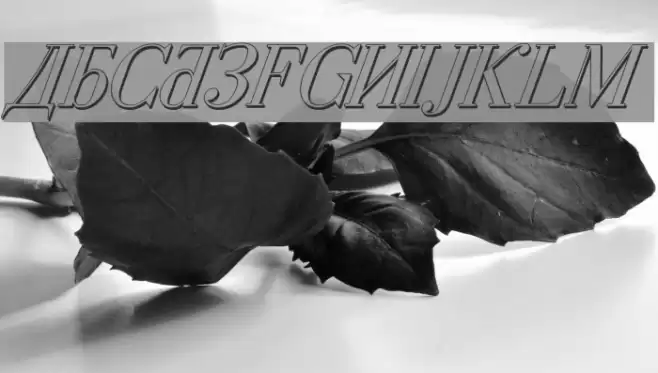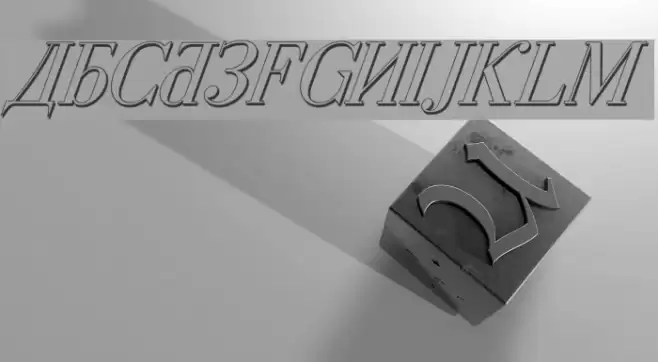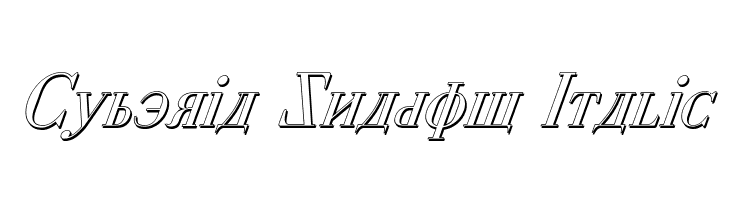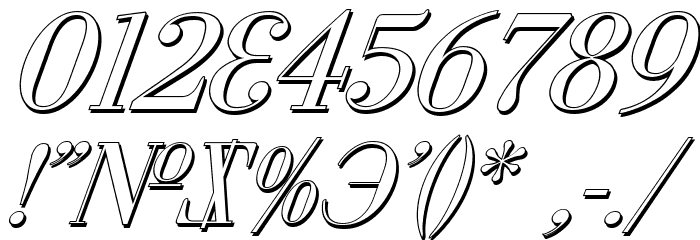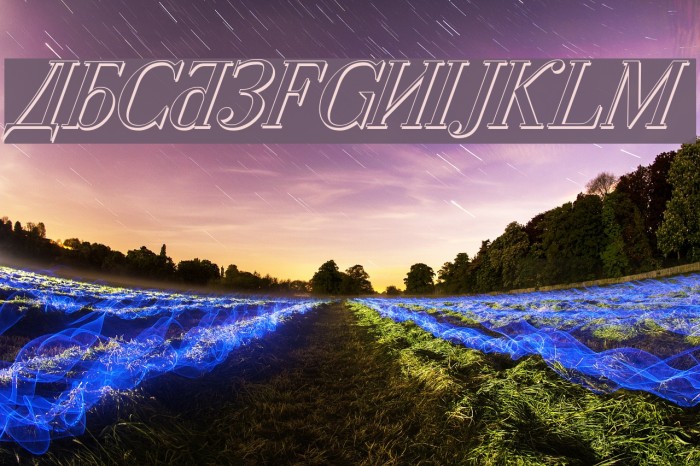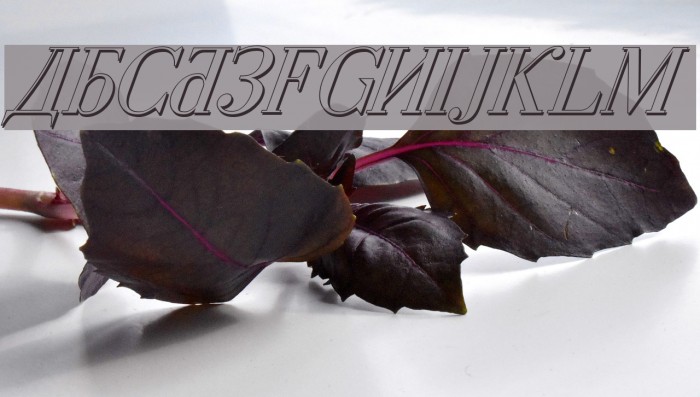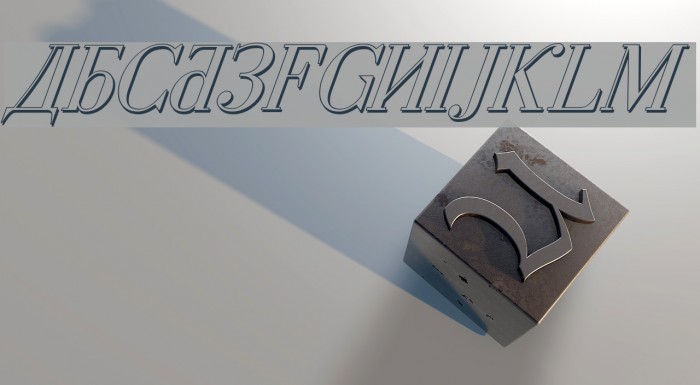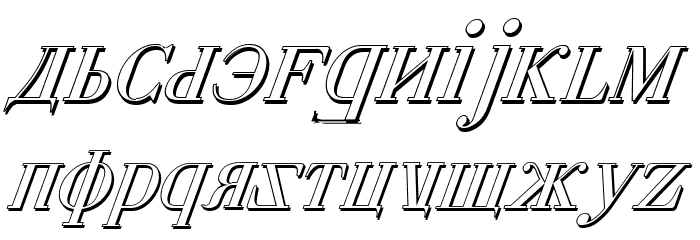
Cyberia Shadow Italic Font
Cyberia Shadow Italic Description
This font features a dynamic and elegant design with a distinct italic slant, giving it a sense of movement and sophistication. The characters are outlined with a shadow effect, adding depth and a three-dimensional appearance. The strokes are moderately thick, providing a balanced contrast that enhances readability while maintaining a stylish flair. The uppercase and lowercase letters are well-proportioned, with a consistent slant that unifies the overall look. Numbers and special characters are designed to match the font's aesthetic, ensuring a cohesive appearance across all text elements. The font's unique style makes it suitable for creative and impactful designs.
An italic font with shadow effects, offering a dynamic and elegant appearance from Formal fonts.